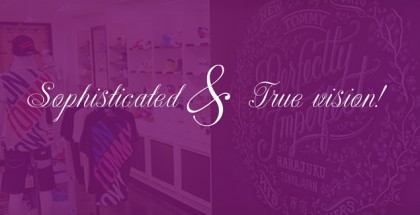
Burgues Script font
Burgues Script font is an ode to the late 19th century American calligrapher Louis Madarasz, whose legendary pen has inspired schools of penmanship for over 100 years. His talent has caused some people to call him “the most skillful penman the world has ever known.”
Alejandro Paul says about Burgues Script font: “I use the word ‘ode’ in a colloquially ambitious manner. If I was an actual poet, my words would be about things I desire but cannot attain, objects of utter beauty that make me wallow in humility, or people of enormous talent who look down at me from the clouds of genius.
But I don’t write poems. My work consists of letters drawn to fit together, that become an element of someone’s visual poetry. I am the poet’s assistant, so to speak. Once in a while, the assistant persists on what the subject of the poem will be. And occasionally, the poet gives in to the persistence. I hope you, visual poet, find my persistence justified in this case.
The two main sources for Burgues were the calligraphy examples shown in Zaner Bloser’s The Secret of the Skill of Madarasz: His Philosophy and Penmanship Masterpieces, and C. W. Jones’s Lessons in Advanced Engraver’s Script Penmanship by L. Madarasz.
These two references were the cornerstone for the concept I was trying to work with. I did have to change many of the letters in order to be able to produce digital calligraphy that can flow flexibly and offered the user a variety of options, while maintaining its attractive appearance. To this end, many ligatures and swashes were made, as well as full flourished sets of letters for use at the beginnings or endings of words and sentences. All of this has been tied together with OpenType and tested thoroughly within today’s standard design and desktop publishing software.
After working with digital scripts for so long, at one point I thought that Burgues Script font would become a bit of a chore to complete. I also thought that, like with most other scripts, the process would regularize itself after a while and be reduced to a mechanical habit. Surprisingly, and fortunately for me, this did not happen. The past holds as many surprises as the future. Madarasz’s method of penmanship was fascinating and challenging to translate into the strict, mathematically oriented language of the computer. It seems that the extremely high contrast of the forms, coupled with the required flow and connectivity of such lettering, will always be hard work for any visual artist to produce, even with the aide of a powerful machine. I can only imagine what steady nerves and discipline Madarasz must have had to be able to produce fully flourished and sublimely connected words and sentences on a whim. When I think of Madarasz producing a flourished calligraphic logotype in a few seconds, and try to reconcile that with the timelines of my or my colleagues’ work in identity and packaging design, the mind reels. Such blinding talent from over a hundred years ago.
Burgues is the Spanish word for Bourgeois.
In the end, I hope Burgues Script font will serve you well when a flourished word or sentence is required for a design project. One of the wonders of the computer age is the ability to visually conjure up the past, serving both the present and the future. With Burgues, you have a piece of “the most skillful penman the world has ever known,” at your service.
Burgues script font received important awards such as a Certificate of Excellence TDC2 2008 and a Certificate of Excellence at the Bienal Tipos Latinos 2008.